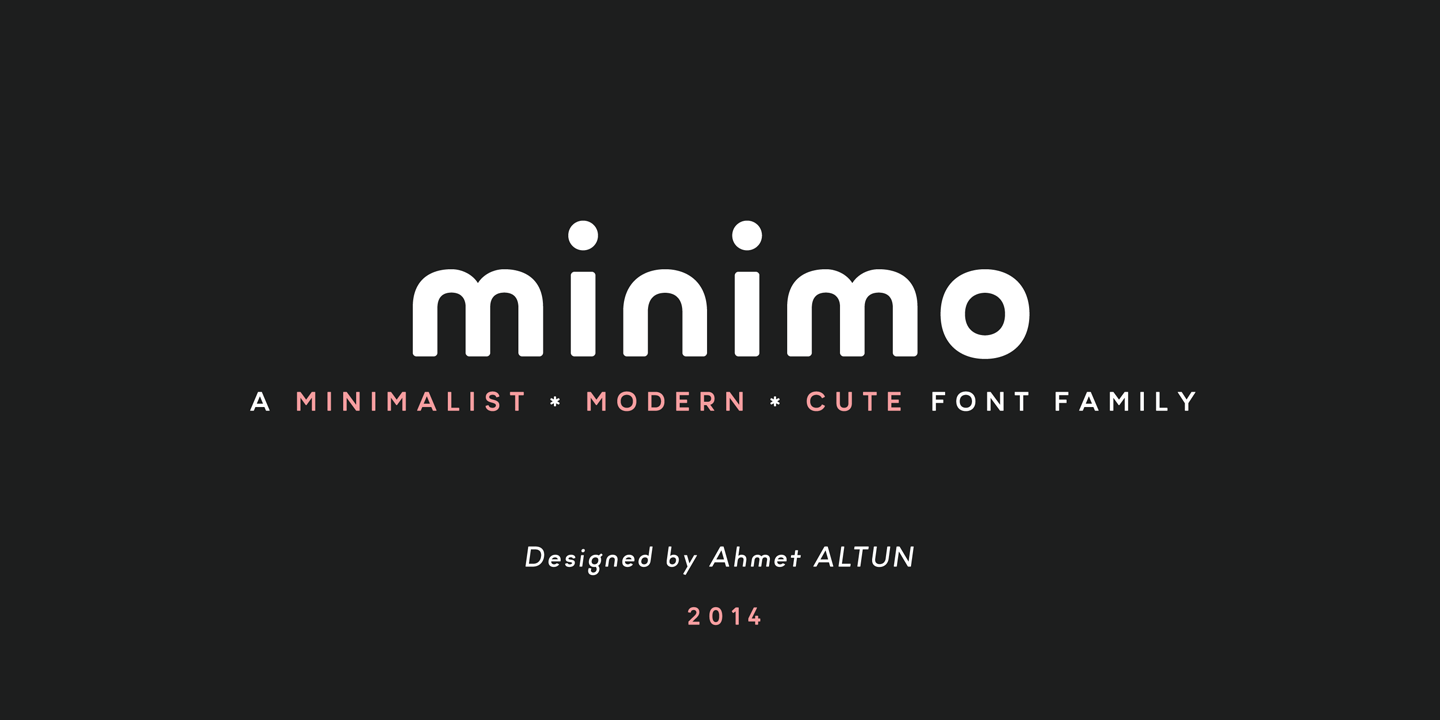
Minimo Font is a sleek and minimalistic sans-serif typeface designed for clarity and modern elegance. Perfect for branding, editorial design, web interfaces, and packaging, it offers clean lines and a refined aesthetic.
What makes Minimo Font Free Download so exciting is its simplicity combined with precise geometry, providing excellent readability and a timeless look that fits a wide range of creative projects.
The Minimo Font family typically includes several weights such as Light, Regular, and Bold, allowing designers to create versatile and harmonious typographic hierarchies.
Whether you're designing logos, websites, or print materials, Minimo Font Free Download ensures your work stands out with understated sophistication and clarity.